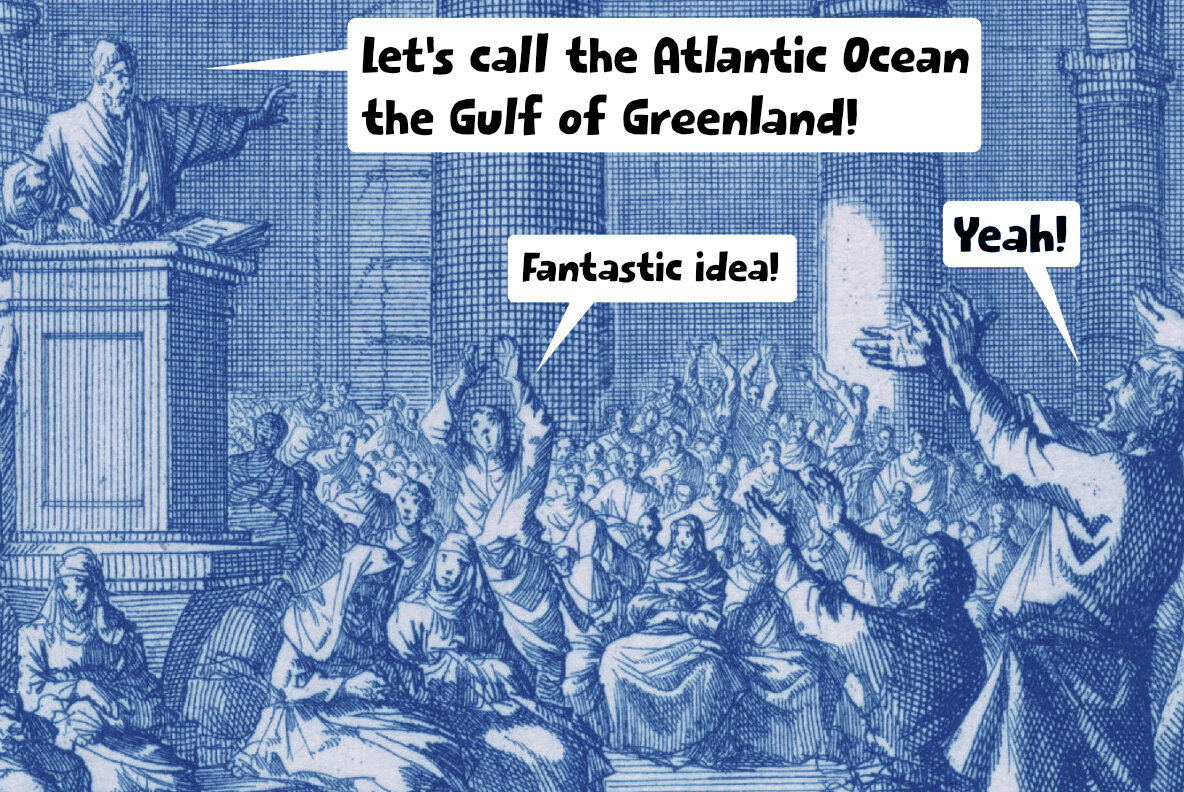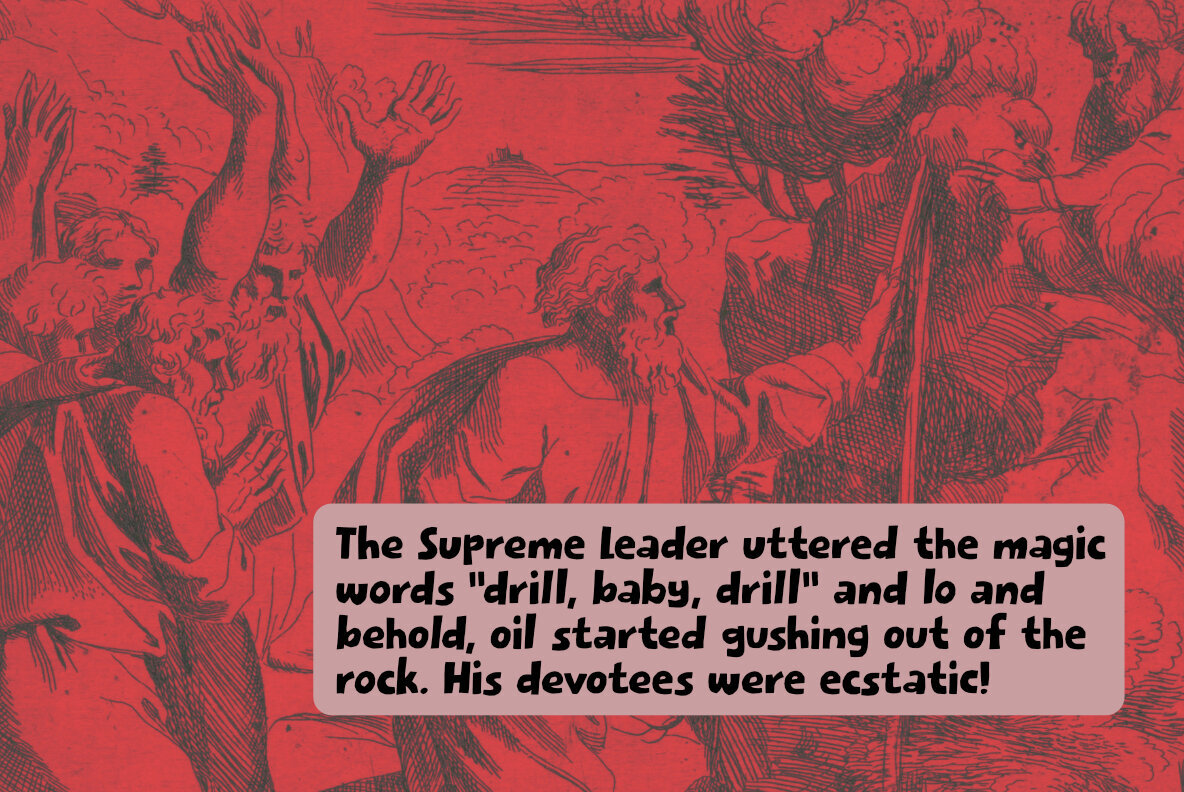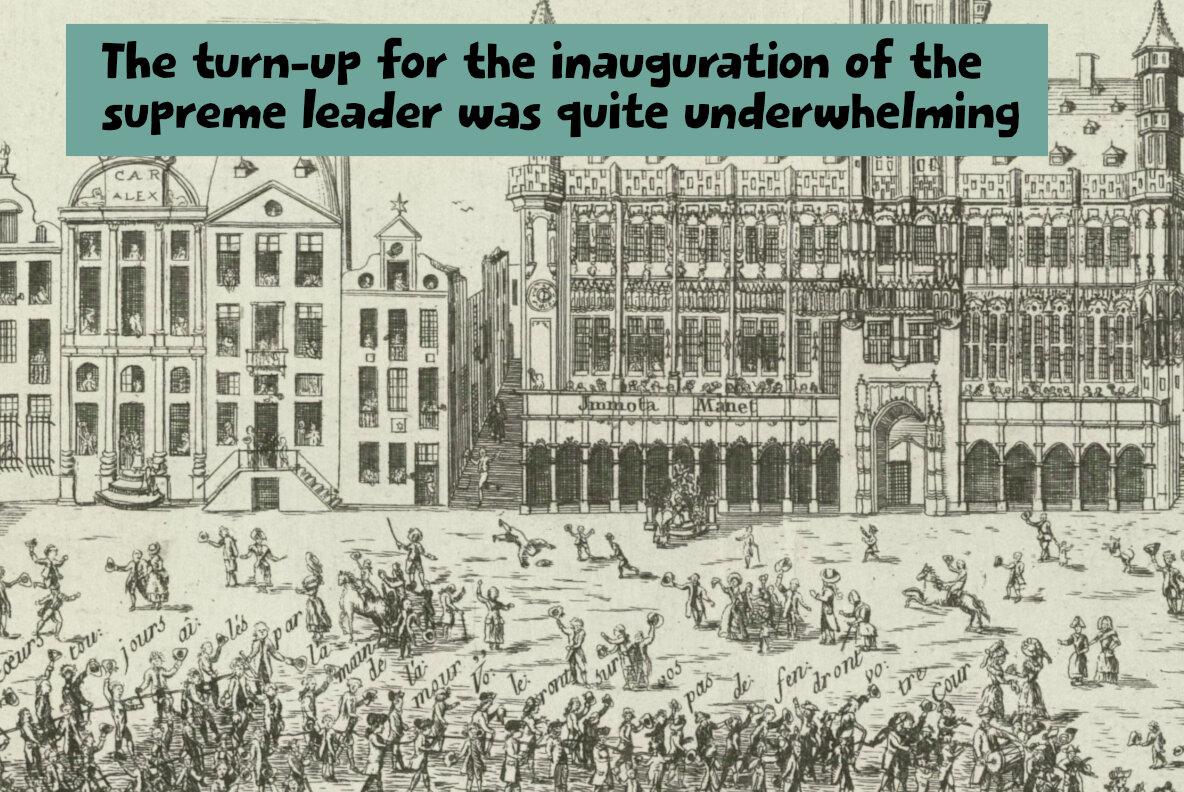
Cheering Section Font
This font is inspired by recent and ongoing events, offering a handmade, comic style that's both unique and appealing. Its bold and geometric sans-serif design is perfect for making a statement in headlines, posters, and branding projects. With clean, blocky letterforms and a modernist flair, this typeface offers minimal yet impactful style. Use it to infuse your designs with a touch of mid-century elegance and ensure your message stands out.Bold Geometric Sans-Serif Font: Ideal for Impactful Headlines